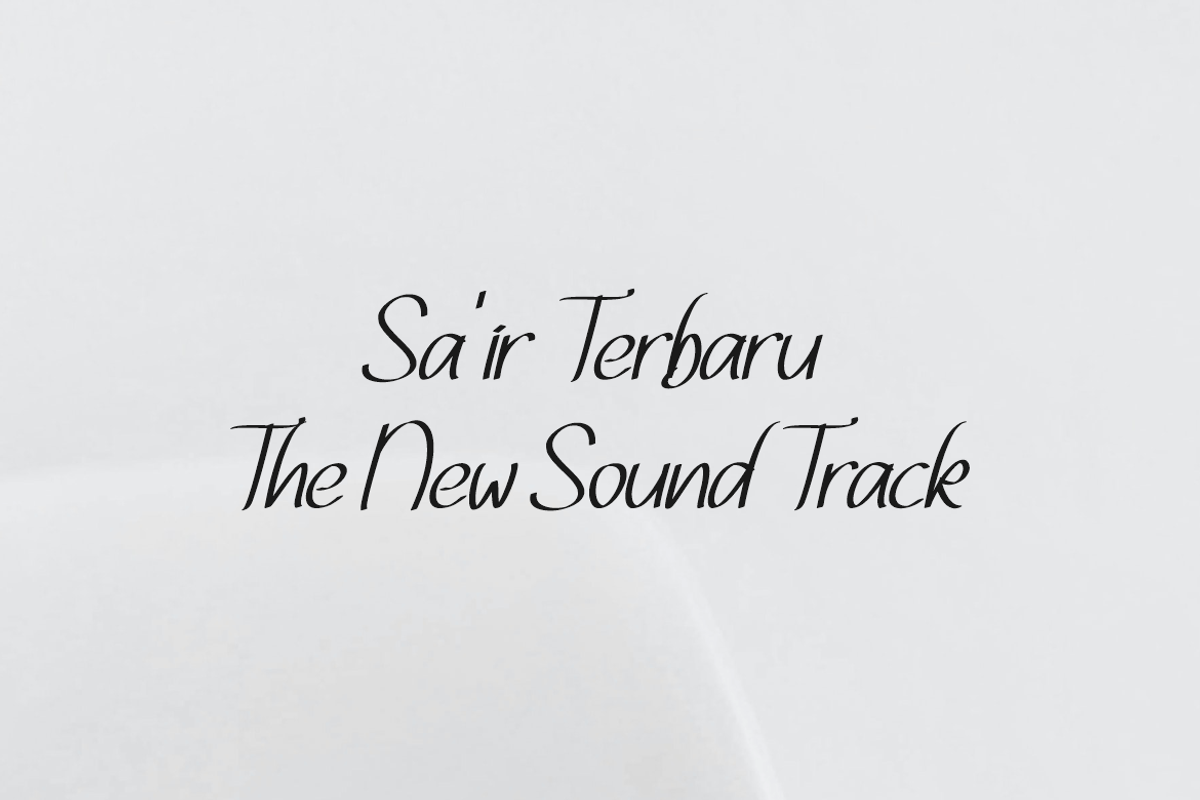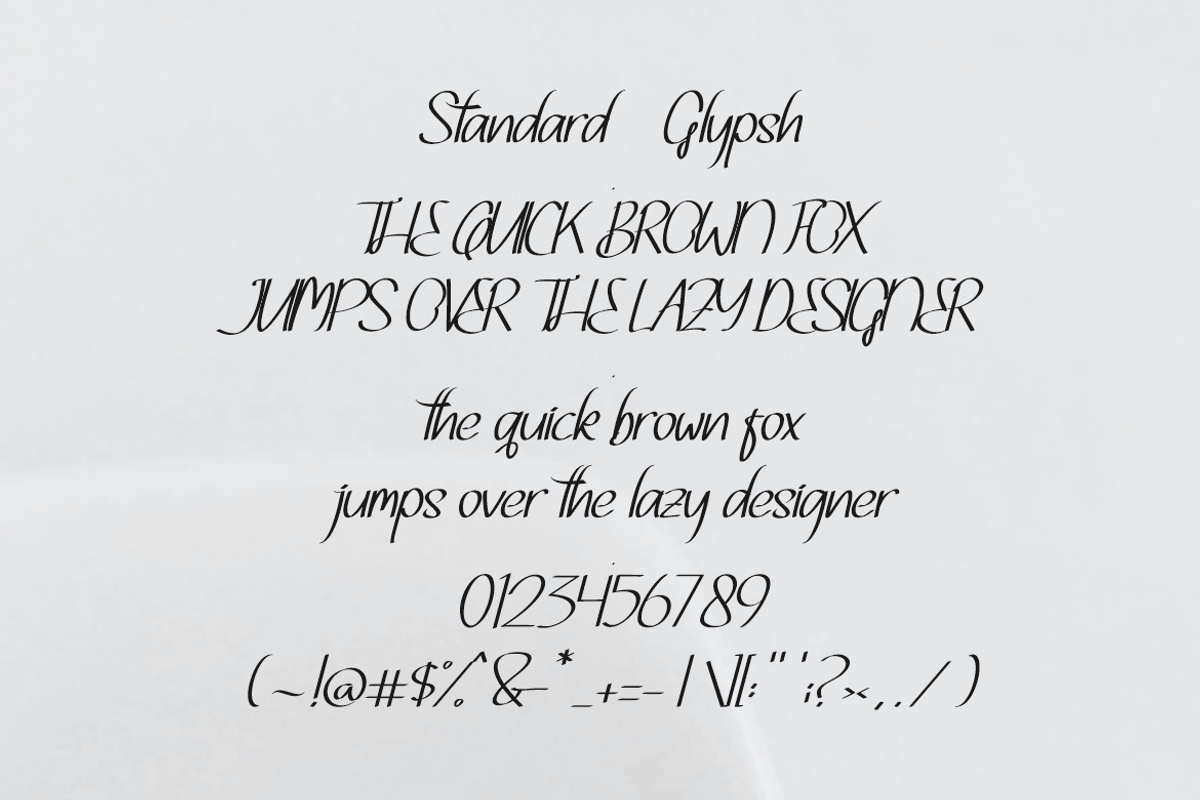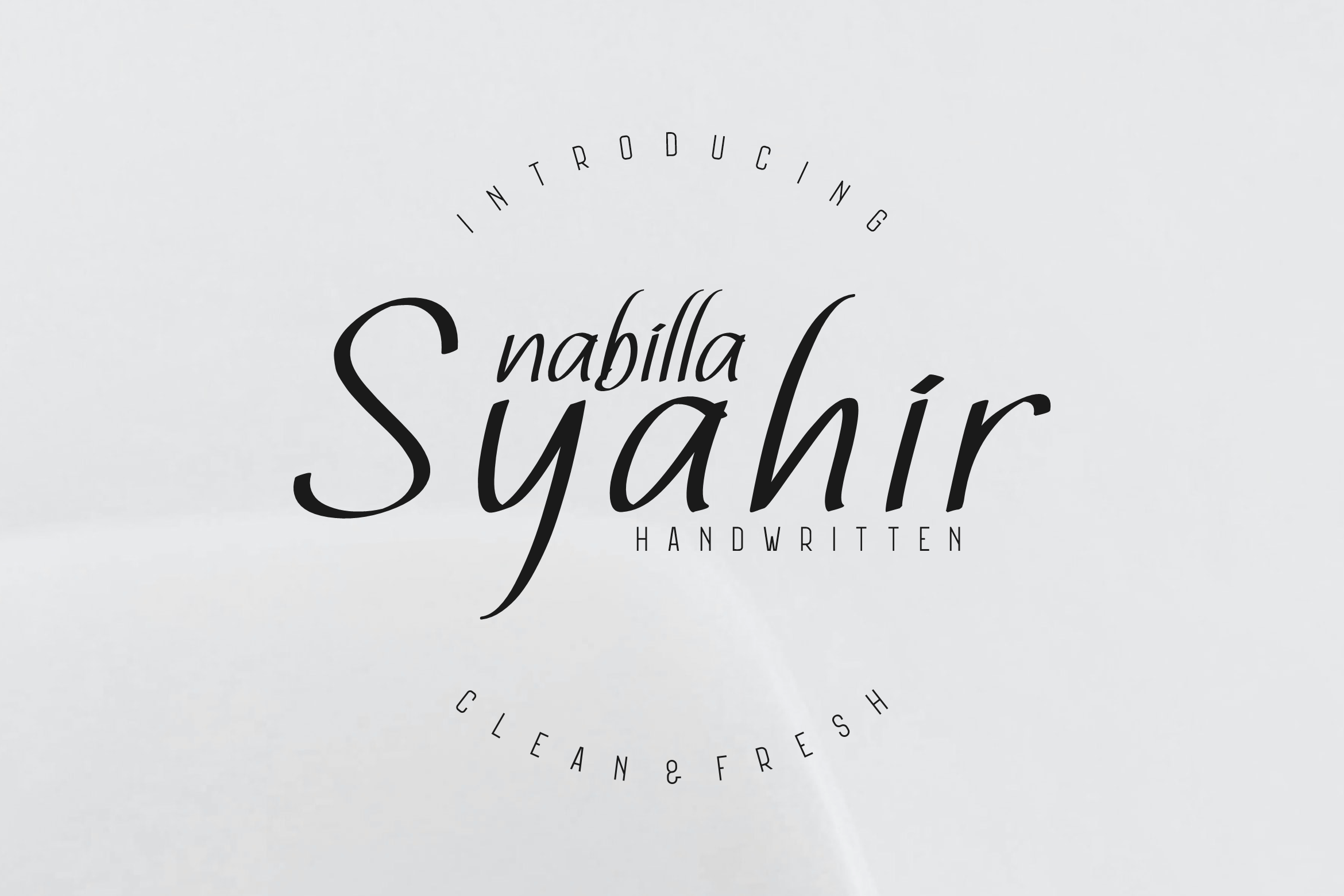
Nabilla Syahir Font
Nabilla Syahir Font It has a elegant, classy look and modern. It’s a great font for fashion, apparel projects, signature, album cover,logo, branding, magazine, social media, & advertisements, but also works great for other projects.